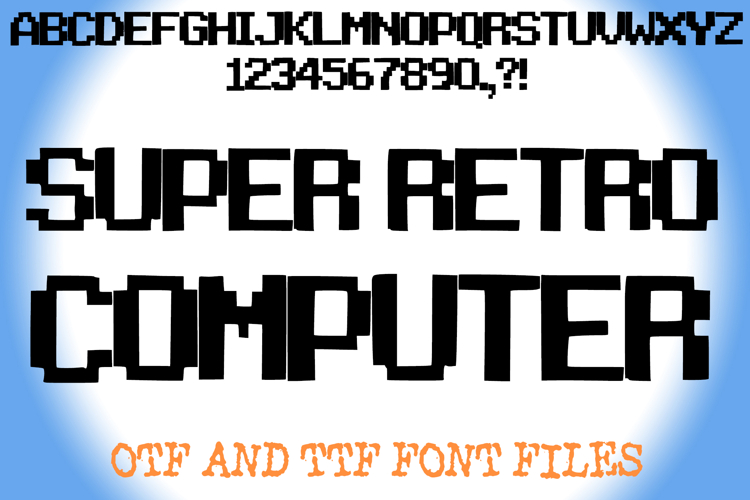
Super Retro Computer Alphabet Lettering ABC Text Font OTF
A unique key style font where you can create your own words and colour them to your vision!